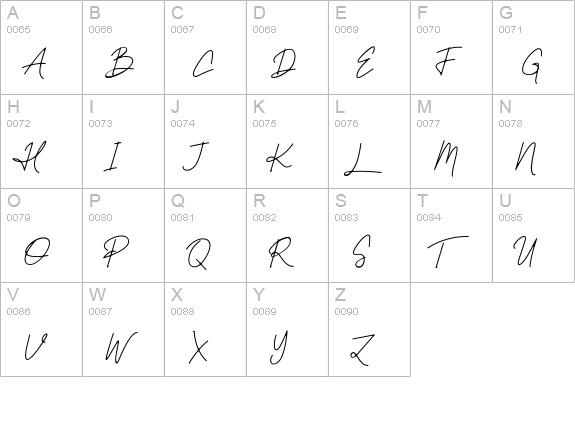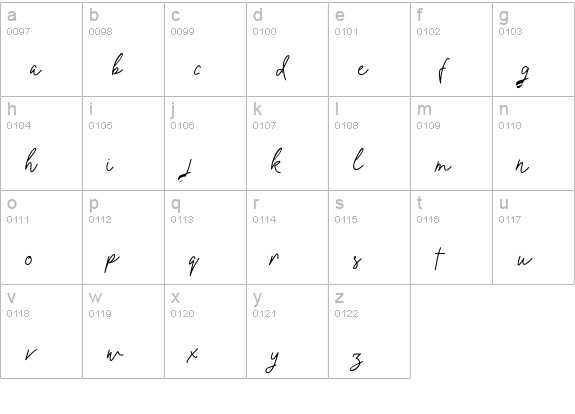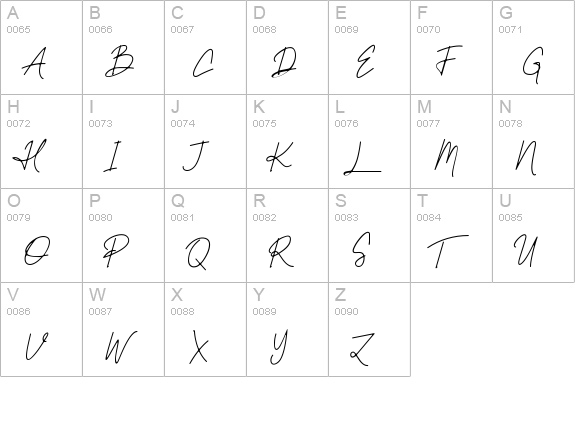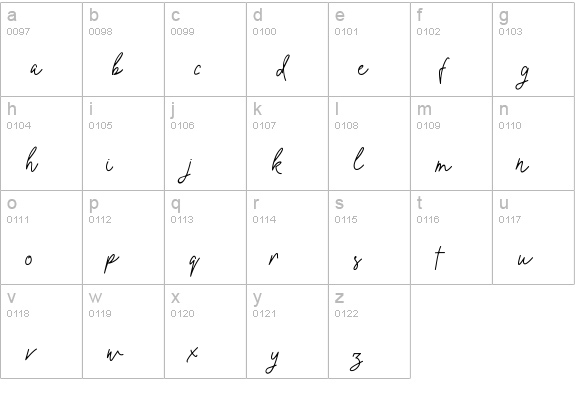
Oxlade Font Details
Oxlade is a free for personal use font in the Script > Handwritten category, designed by yellowline. It has been downloaded 267 times and is available for Windows, Mac and Linux.
The Oxlade font is a modern and stylish typeface that exudes elegance and sophistication. With its sleek lines and clean design, this font is perfect for adding a touch of refinement to any project. The Oxlade font is versatile and can be used for a variety of purposes, from branding to print design.